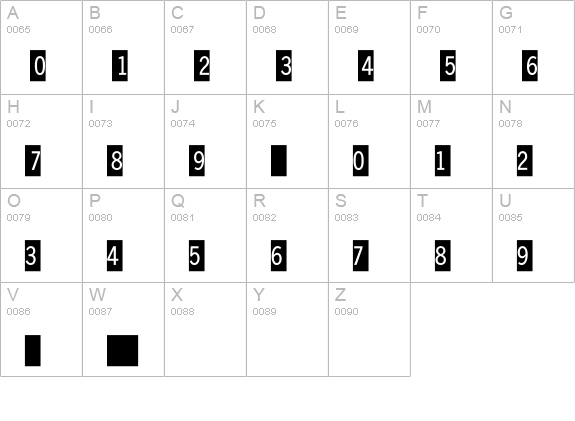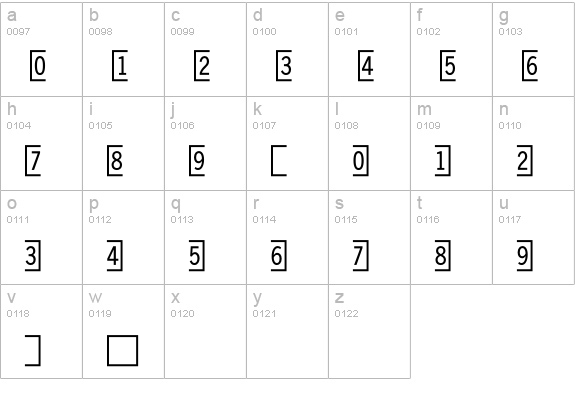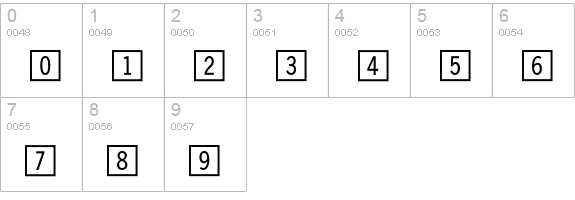
DoubleDigits-Square Font Details
DoubleDigits-Square is a modern and sleek font that combines the elegance of square shapes with a contemporary twist. Its clean lines and sharp edges make it perfect for a wide range of design projects, from branding to digital media. The font features double digits that add a unique touch to any text, making it stand out effortlessly. Best of all, DoubleDigits-Square is completely free to download at FontsMarket.com. Whether you're a designer looking to add a fresh vibe to your creations or a business owner in need of a distinctive font for your marketing materials, DoubleDigits-Square is the perfect choice. Download it today and see how it can elevate your designs to the next level.